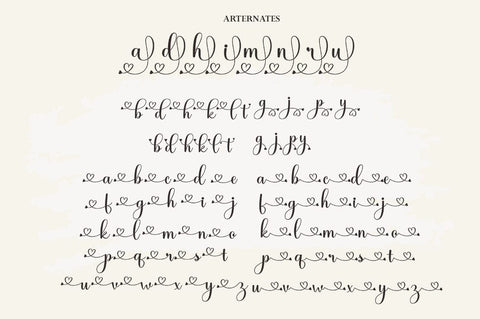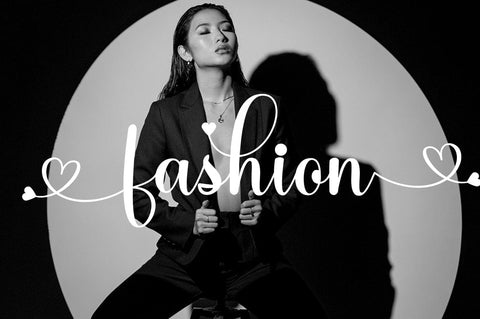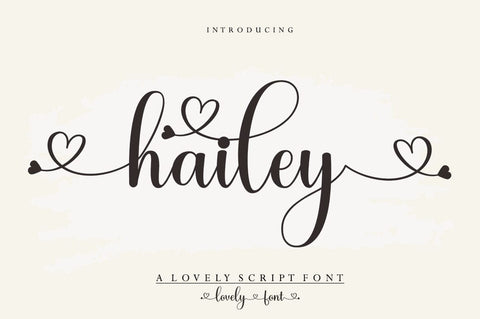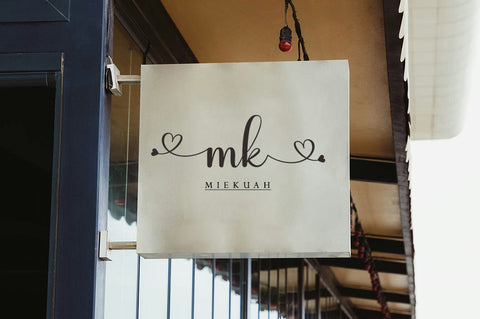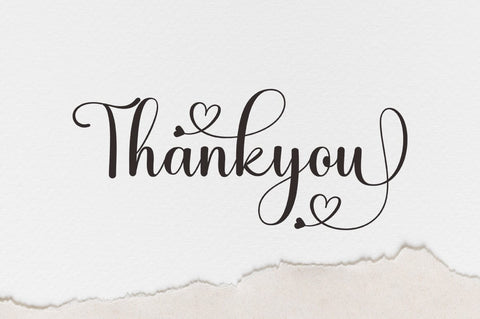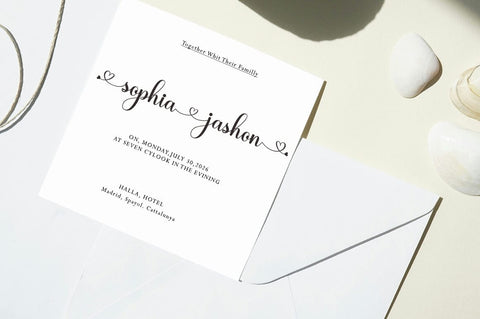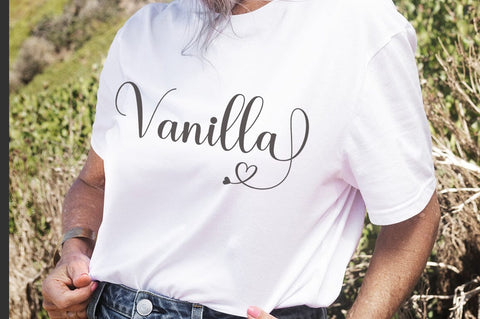
hailey
Enhance your wedding and branding projects with the enchanting “hailey Font”. This script font seamlessly combines elegance and romance, making it the perfect choice for wedding invitations, heartfelt messages, and distinctive logo branding.
Whether you're creating wedding masterpieces or building a brand that speaks volumes about love and relationships, Hailey Font is your work of art. Give your projects an essence of romance and refinement—choose Hailey Fonts for a truly captivating design experience!